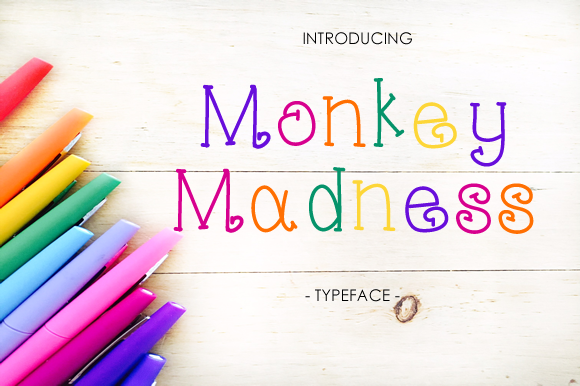
Monkey Madness Font
About Monkey Madness Font
Monkey Madness is a cute, slightly curled display font. This font is handwritten, and can add tons of charm and grace to your works.